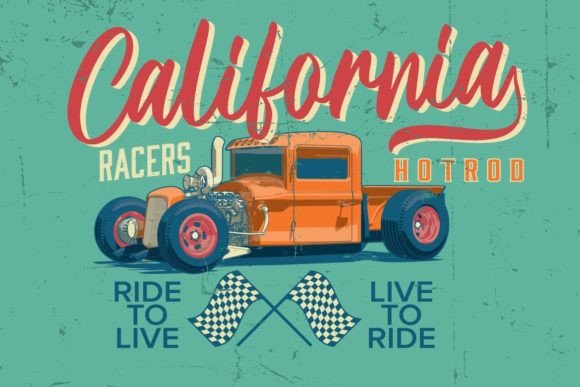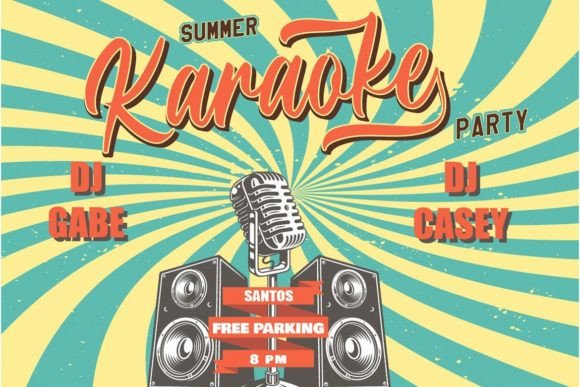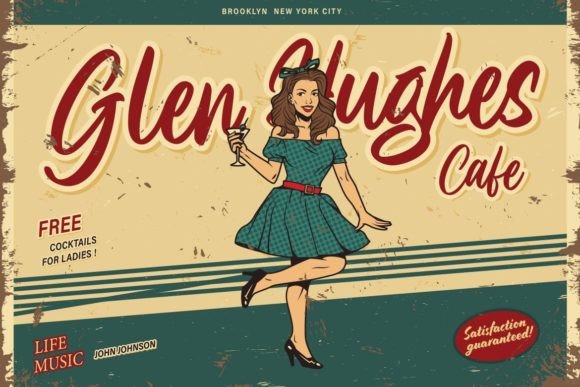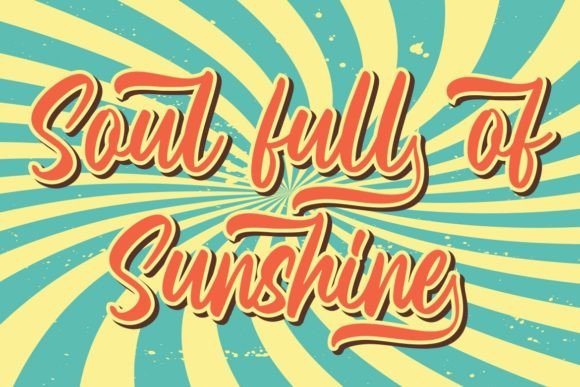
About Rogue Font
Enter the world of Rogue, a stylish and retro script font that seamlessly blends vintage aesthetics with a touch of modern flair. This font is not merely a typeface; it’s a design element that elevates all your special projects, infusing them with an extra touch of nostalgia and timeless style.
Rogue’s charm lies in its ability to evoke a sense of vintage elegance. The script style carries a distinct retro vibe, reminiscent of classic design eras. Whether you’re working on branding, posters, invitations, or any project that requires a dash of sophistication, Rogue is crafted to enhance your creative vision.
The vintage aesthetic of Rogue makes it a standout choice for those who appreciate the timeless beauty of classic design elements. It’s a font that adds character and a sense of history to your text, creating a unique visual experience for your audience.
Consider Rogue as the font that effortlessly transports your projects to a bygone era while maintaining a stylish and contemporary edge. Its retro script design allows you to tap into the nostalgia trend while adding a touch of modernity to keep your designs fresh and relevant.
In essence, Rogue is more than just a font; it’s a design statement that brings a stylish and retro touch to your creative projects. Embrace its vintage aesthetic to infuse your designs with a sense of nostalgia and sophistication. Rogue is your ticket to creating projects that stand the test of time with timeless elegance.